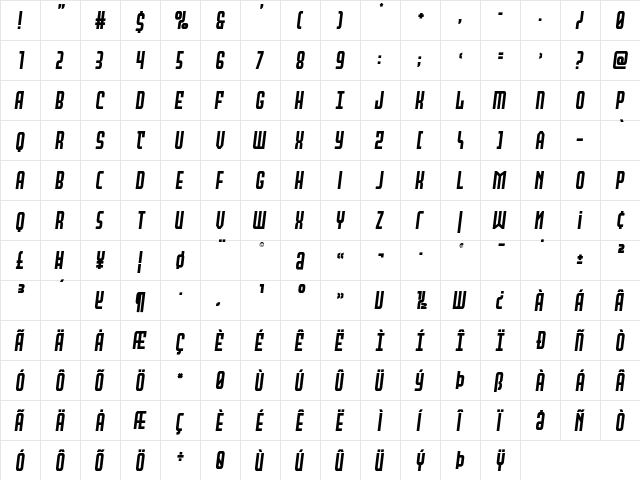
Peace & Houston Semi-Italic Regular
Design Context for Peace & Houston Semi-Italic Typeface
Peace & Houston Semi-Italic takes a measured approach to typography — its balanced proportions and neutral character make it a reliable workhorse for both digital and print work. The slanted form adds forward momentum and visual energy.